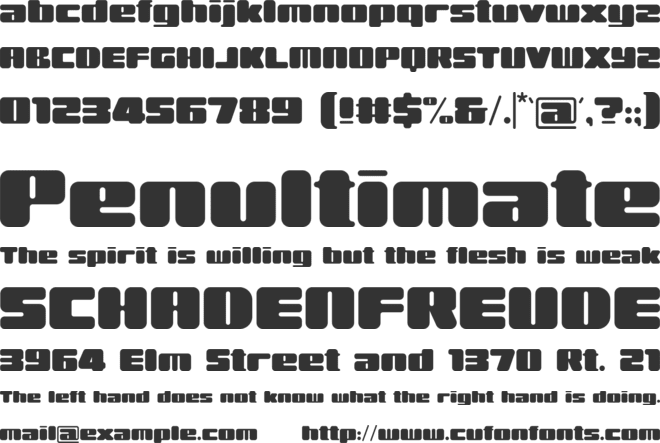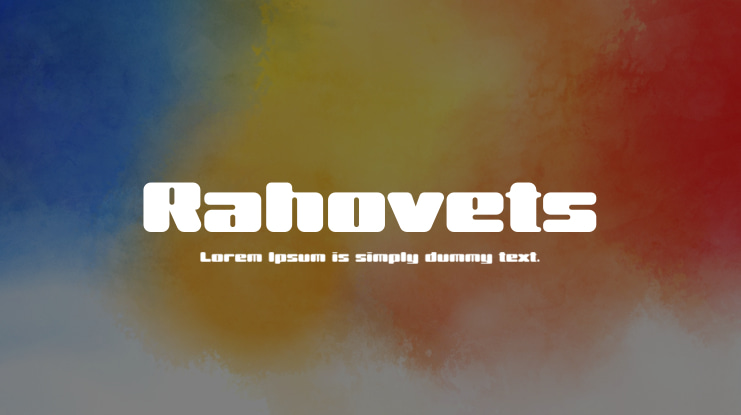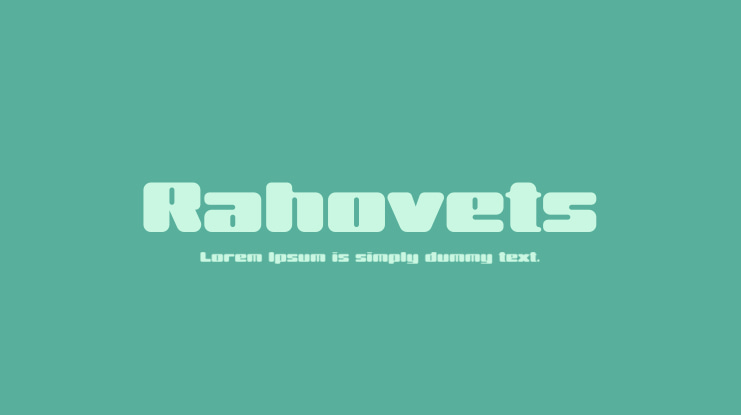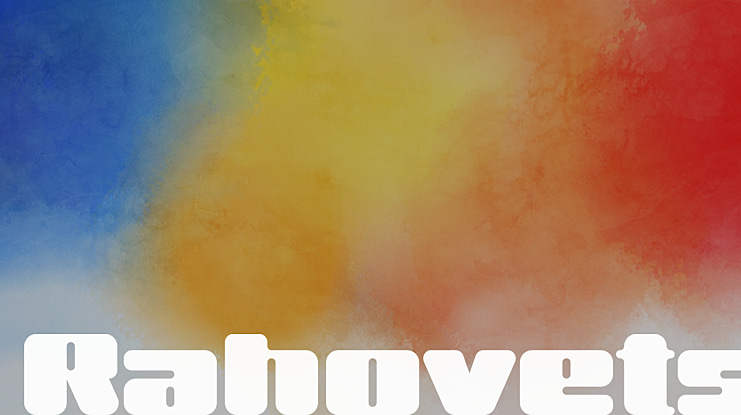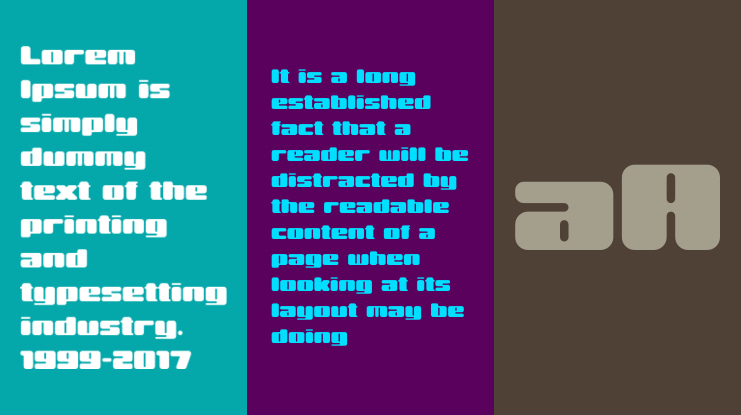
Rahovets Font
Kolyu Kolev
Rahovets is an ancient settlement and fortress located near the town of Gorna Oryahovitsa in Bulgaria. Rahovets by Fontease is a free font inspired by an inscription on the most popular Bulgarian compact oven from the communist era, which bears the same name.